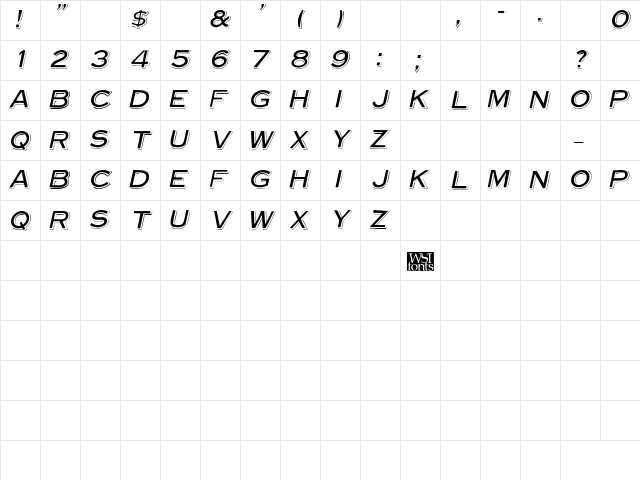
VinylCapsHeavy Italic
Design Context for VinylCapsHeavy Typeface
VinylCapsHeavy is a composed and adaptable typeface that performs quietly and consistently across a wide range of design contexts. Its italic angle brings a sense of urgency and motion to the letterforms.
Pro Tip: Use VinylCapsHeavy for emphasis, pull quotes, and subheadings where its slanted energy can add rhythm to the layout.